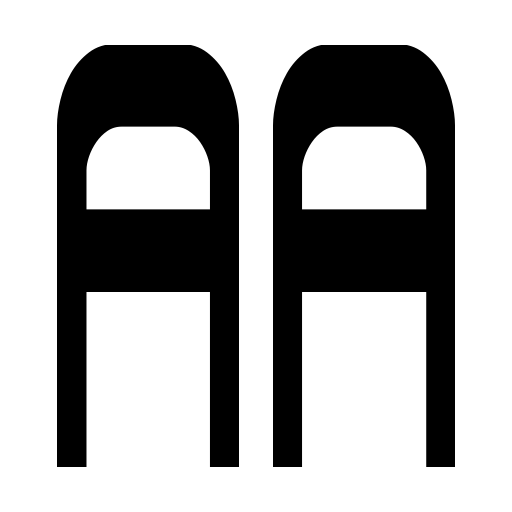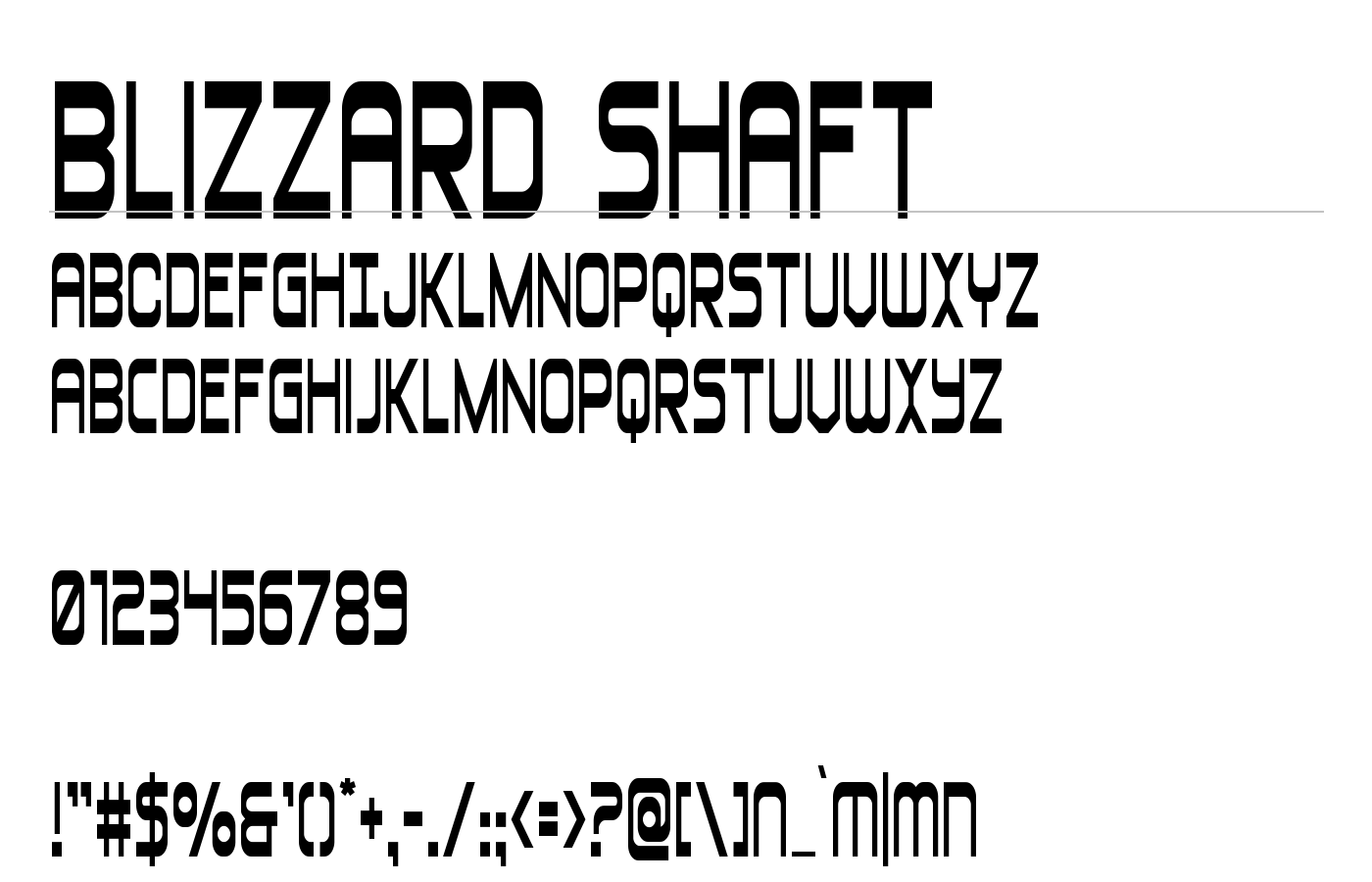
Blizzard Shaft is a bold, condensed sans serif font with high contrast between thick and thin strokes, featuring sharp, geometric letterforms that convey a futuristic and tech-inspired vibe. Its unique shapes and strong vertical emphasis make it ideal for striking headlines, logos, and packaging where a modern, edgy look is desired. This font stands out in digital and print designs demanding a sleek, innovative personality.
Blizzard Shaft Font
About Blizzard Shaft Font